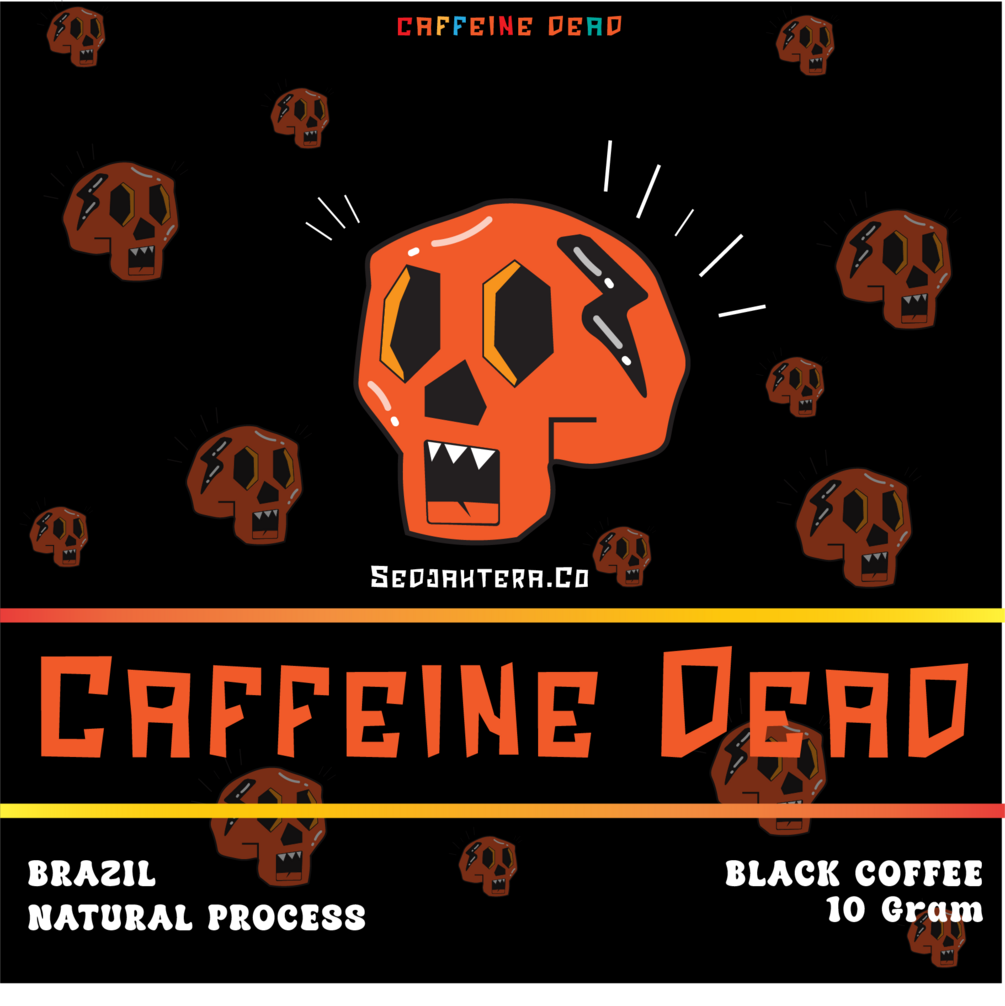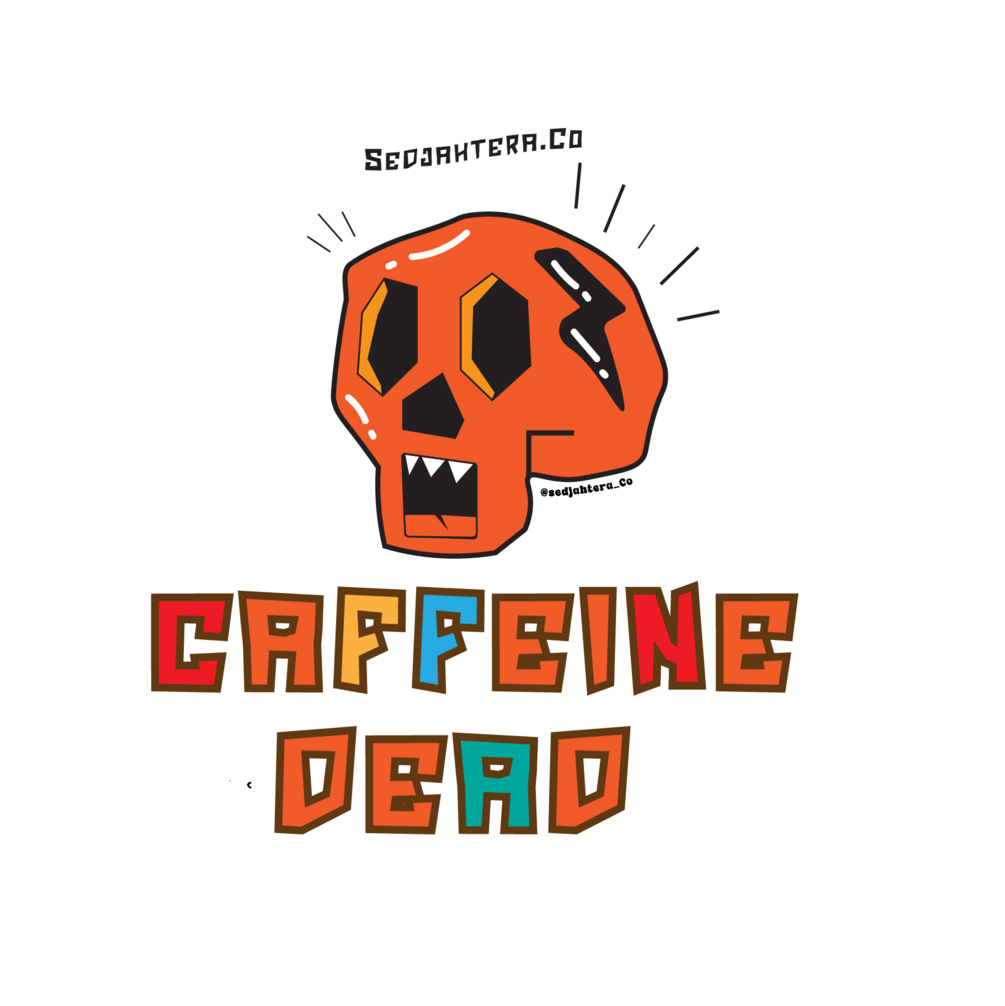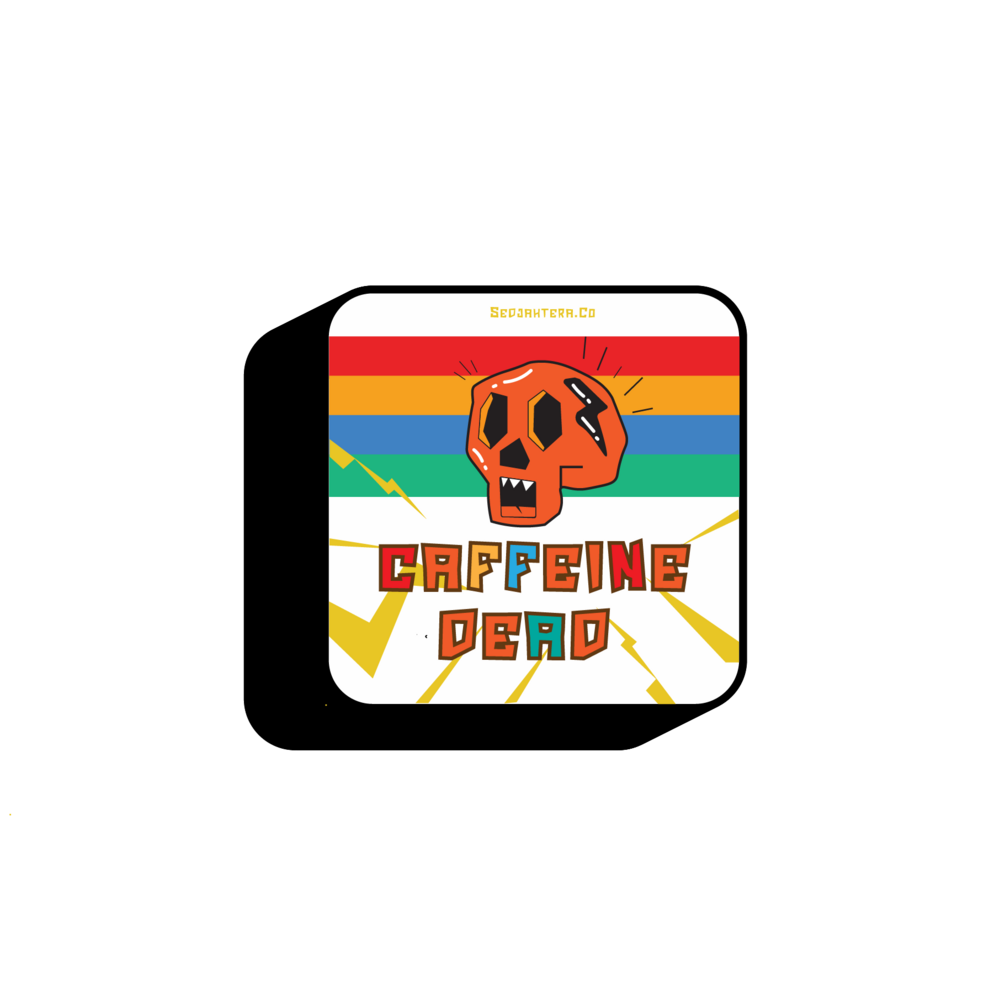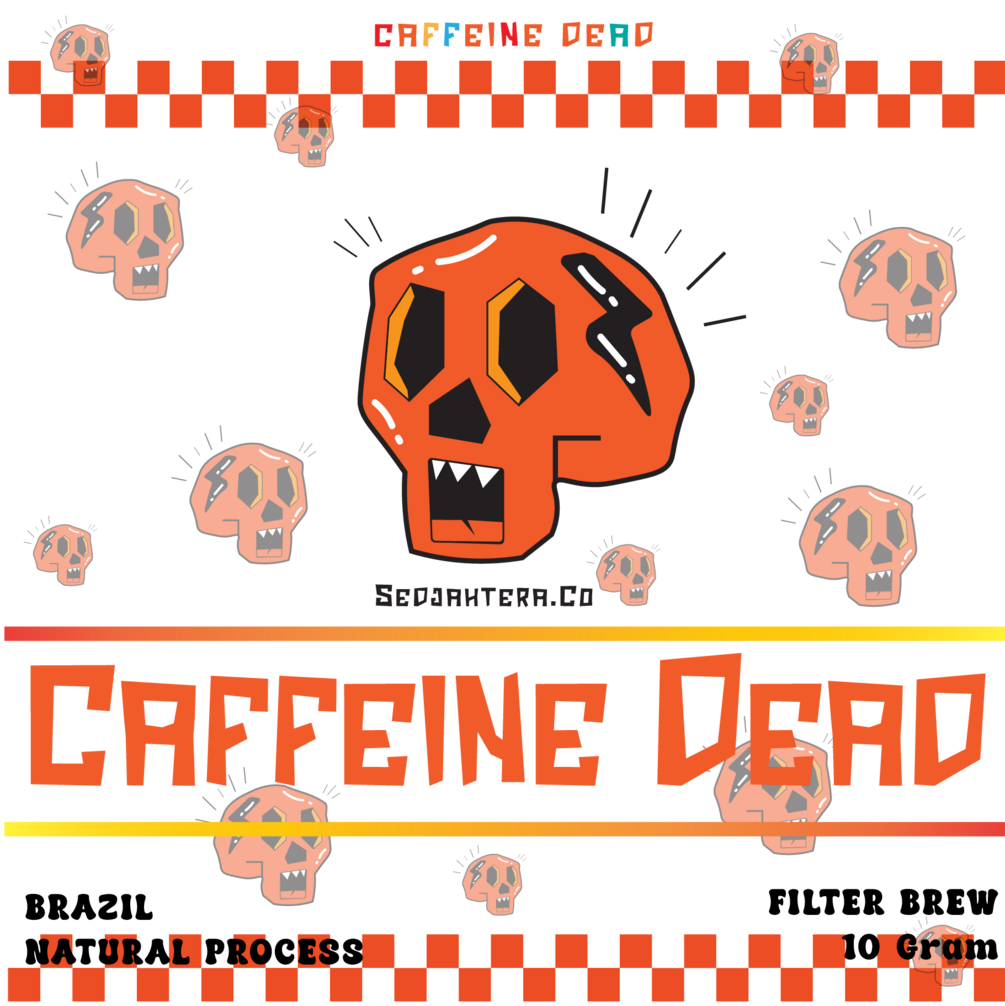
HISTOY STACO
Your imagination is the only limit, as this font is perfectly suited for use in diverse projects, such as the ever-evolving world of robotics, awe-inspiring virtual reality experiences, or even the exploration of the mysterious realm of outer space. Even in the realm of sports, this font will provide a dynamic and modern appearance that will make your message stand out in the eyes of your audience. Overall, this partnership has created a font that not only speaks to the future but also immerses you in it.